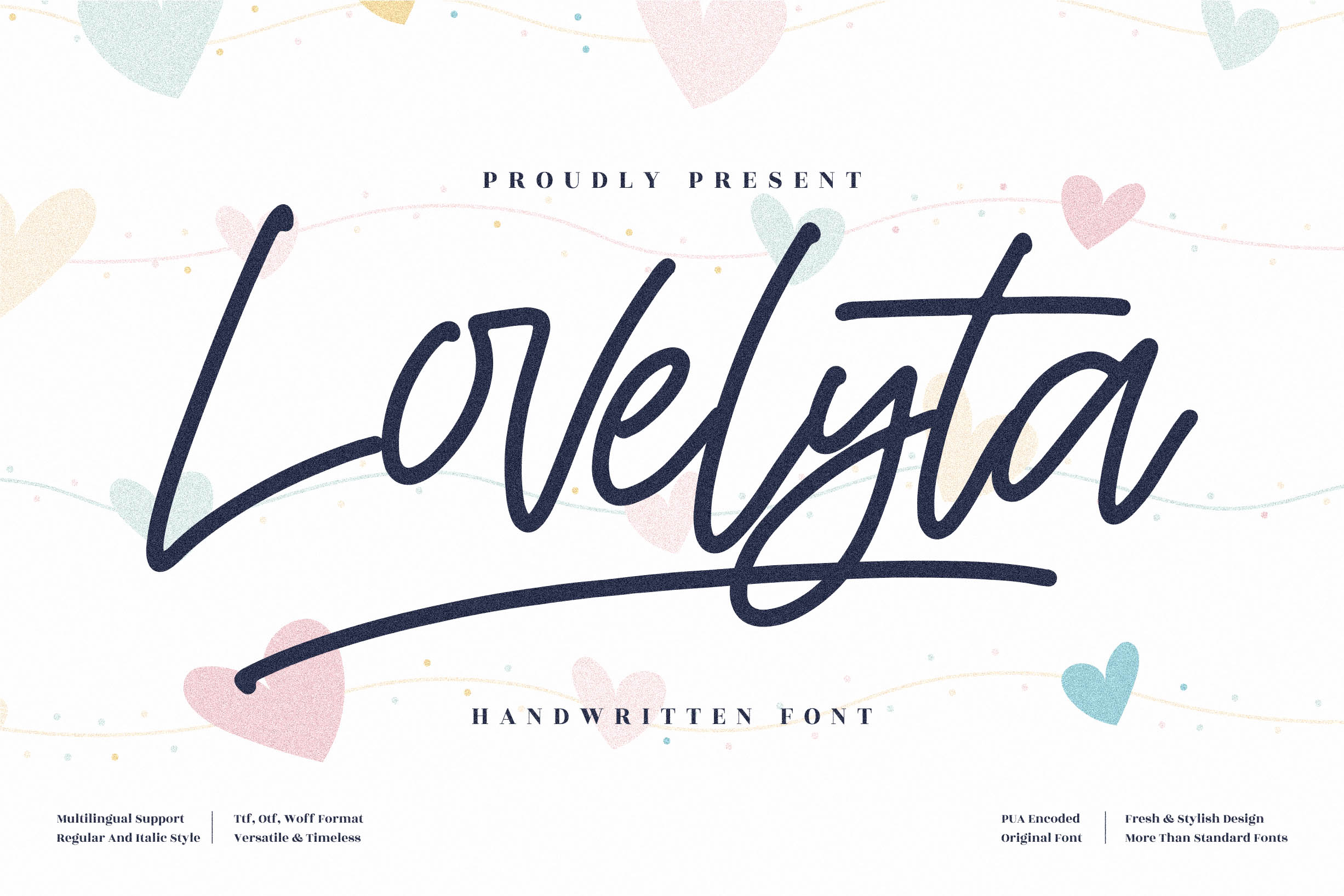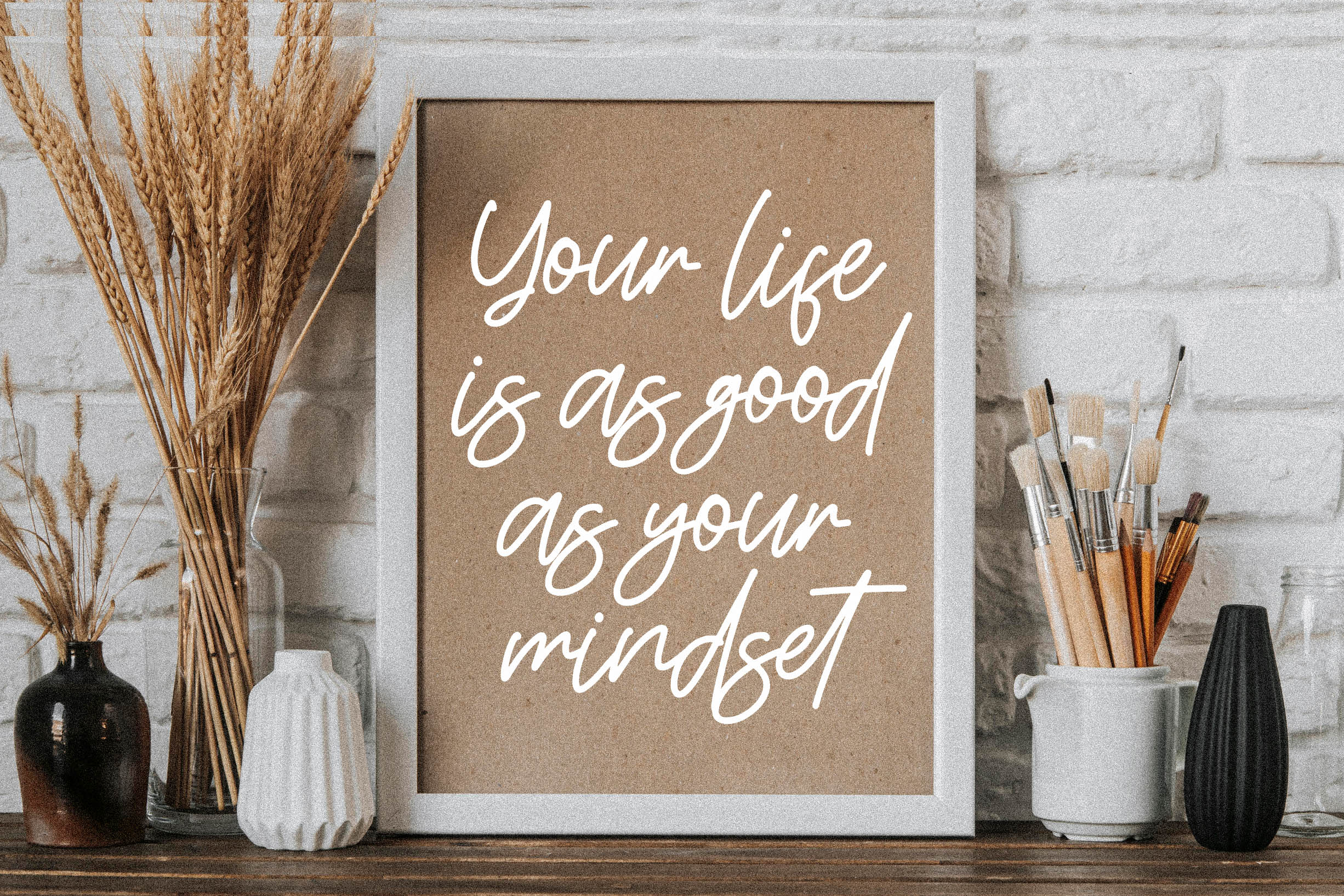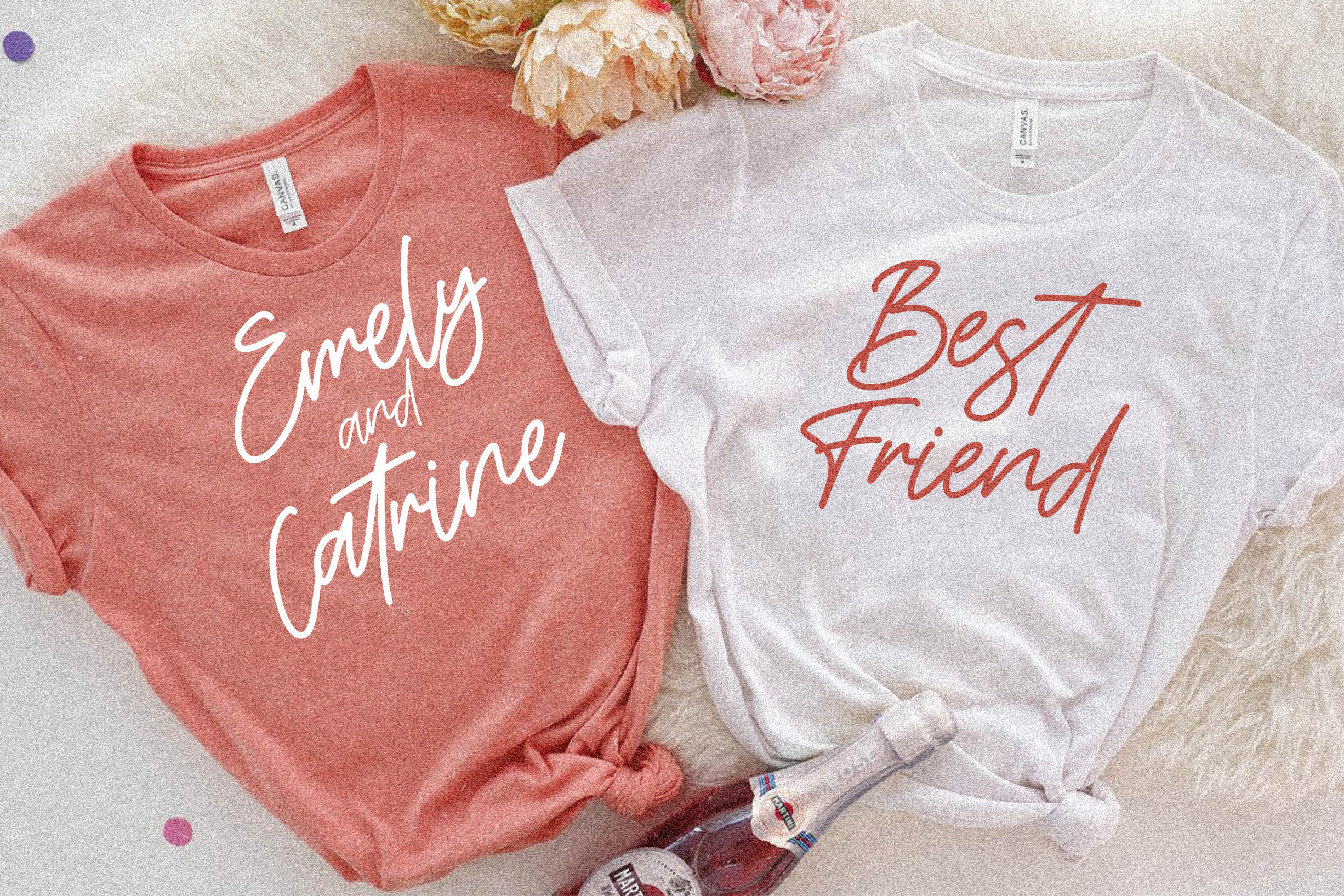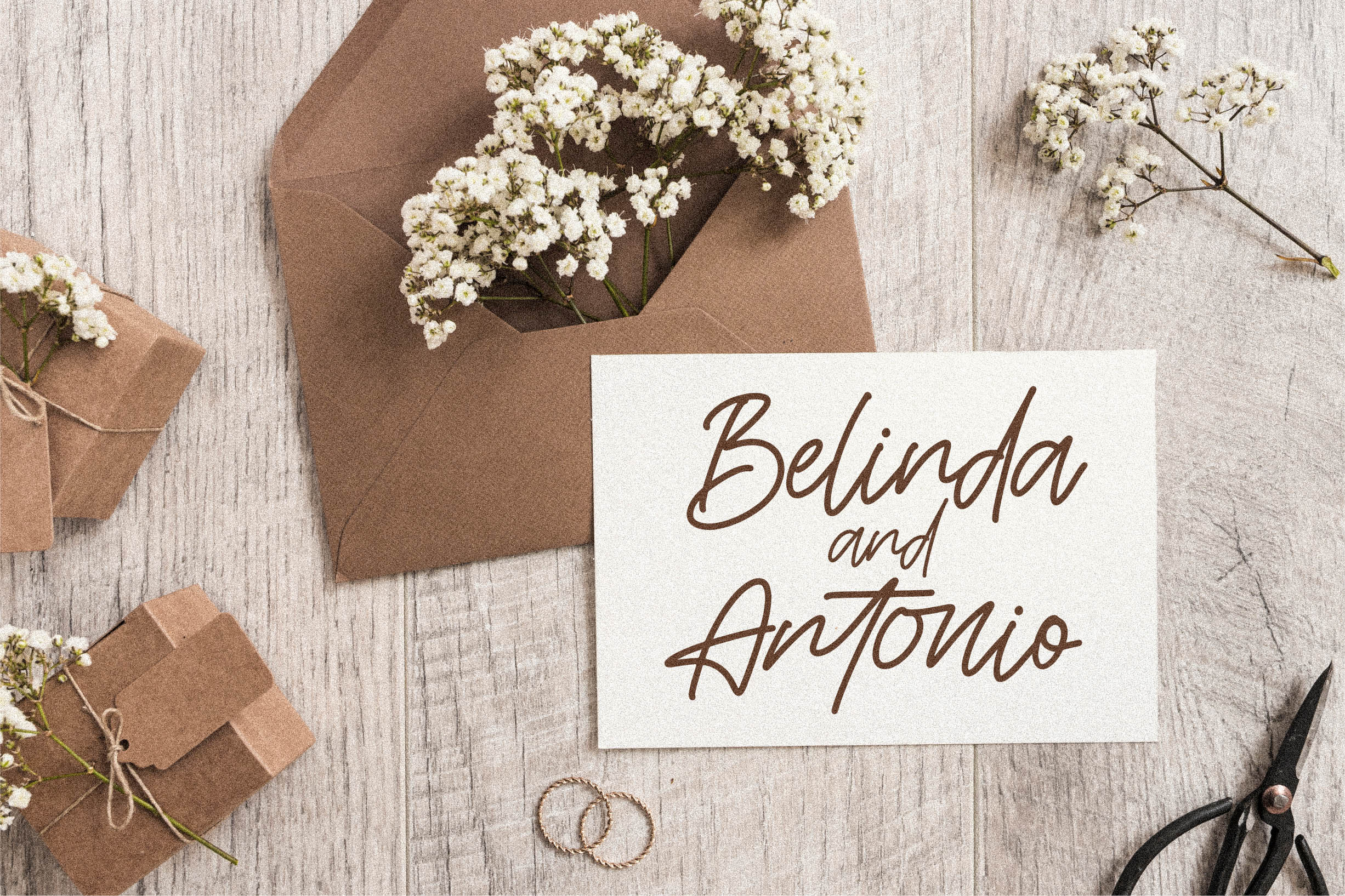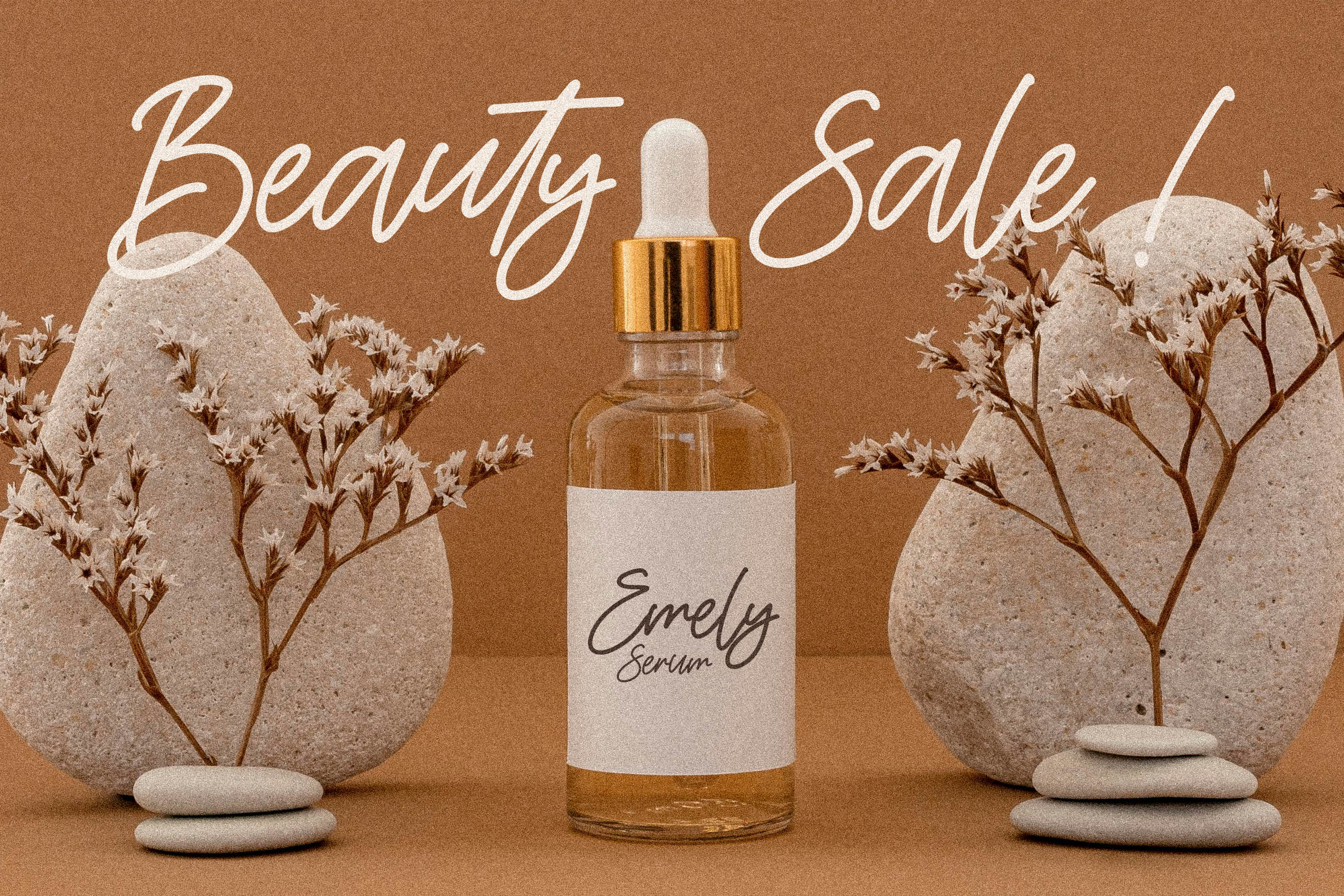
Lovelyta Font
Lovelyta Handwritten Font
This is a handwritten font, suitable for any projects such as: logos, branding projects, homeware designs, product packaging, mugs, quotes, posters, shopping bags, t-shirts, book covers, name card, invitation cards, greeting cards, label, photography, watermark, special events, and all your other luxury projects that need a handwritten taste.